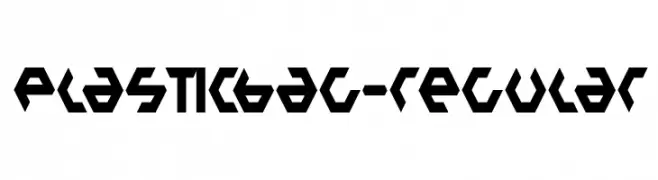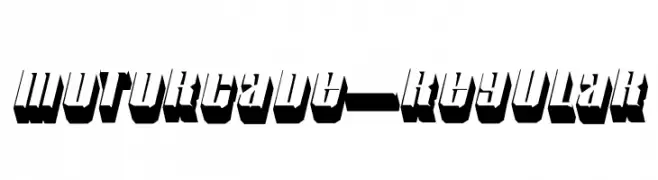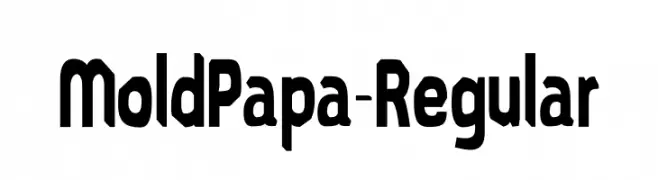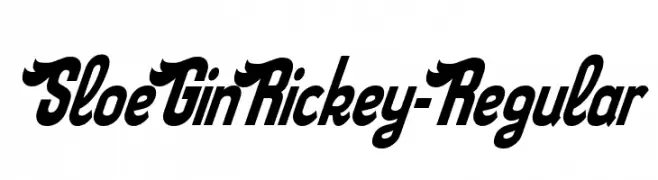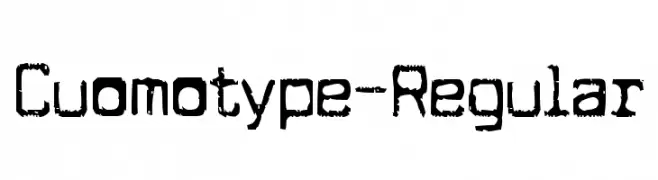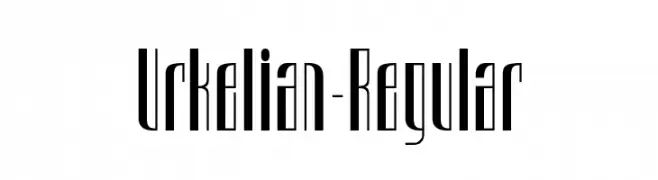
A bold, geometric font with sharp angles and a futuristic style.
A playful, pop-up style font with bold, three-dimensional characters.
A bold, three-dimensional font with a strong shadow effect and geometric structure.
A bold, modern font with a slightly condensed style and medium contrast.
A bold, dynamic font with sharp serifs and a slight slant, perfect for impactful designs.
A bold, slanted font with sharp angles and a dynamic, energetic style.
A rugged, distressed font with a vintage, hand-crafted appearance.
A modern, narrow typeface with high contrast and elegant, elongated characters.
A bold, geometric font with sharp, angular lines and a futuristic feel.
A bold, 3D geometric font with strong shadow effects.